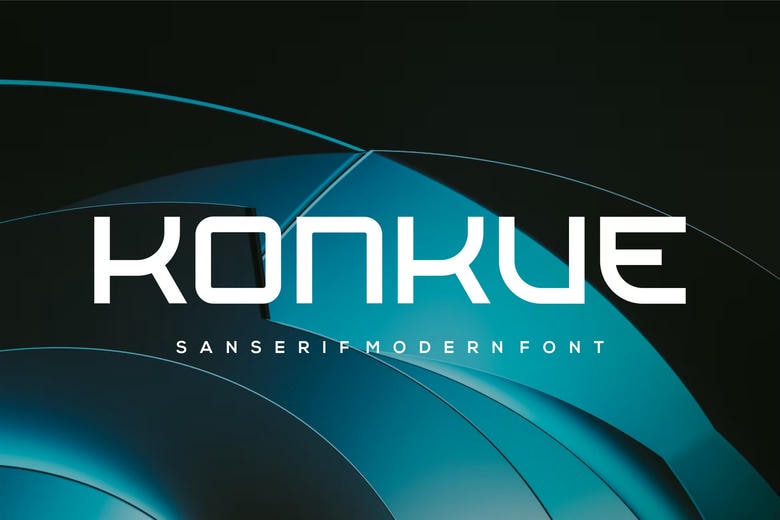
Konkue is yet another beautifully crafted sans serif font that looks and feel modern and professional. For designers who are in the hunt for a professional looking website, its clean and minimalistic nature makes it perfect for the job. The font has lot of curve and straight lines which adds more classic feel to the project and the best part is it is very legible thus works well for headlines as well as for the body copy.
Konkue Sans Serif Font